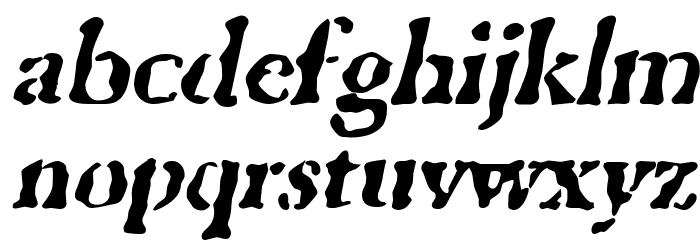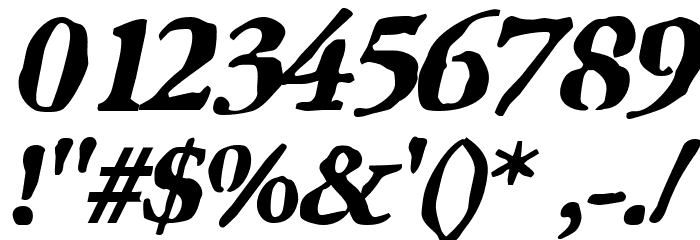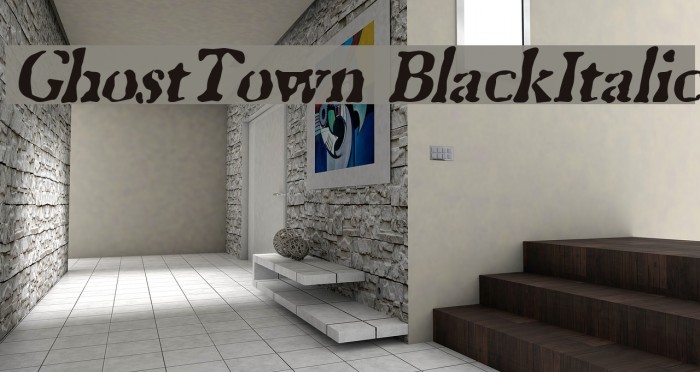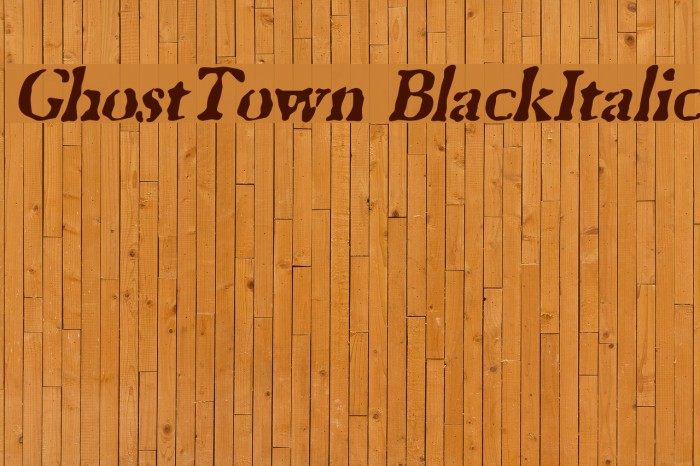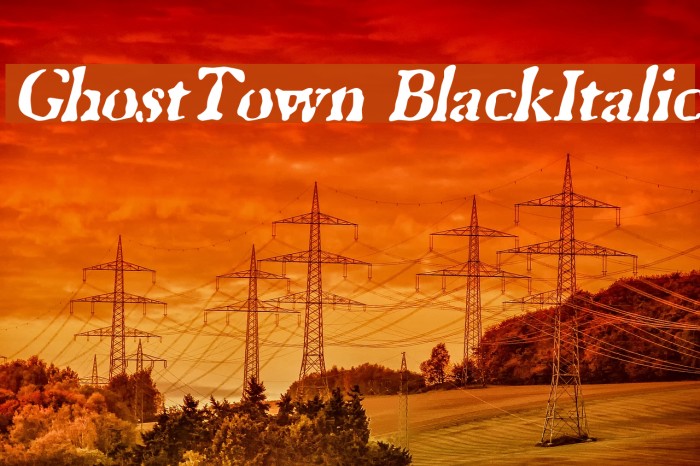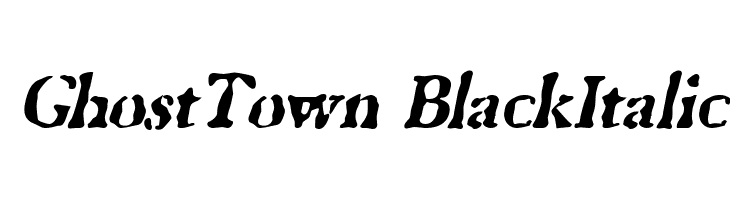
GhostTown BlackItalic Font
This font features a bold and dynamic style with a distinct italic slant, giving it a sense of movement and energy. The characters are thick and robust, with irregular edges that create a rugged, hand-crafted appearance. This design evokes a vintage or western feel, reminiscent of old signage or posters. The uppercase and lowercase letters maintain a consistent style, while the numbers and special characters complement the overall aesthetic. The font's unique character shapes and bold presence make it stand out, perfect for creating eye-catching designs.
A bold, italic font with a rugged, vintage style.
- Proposed Projects: Ideal for posters, logos, branding, and any design needing a bold, vintage touch.
- Overall Style: Vintage